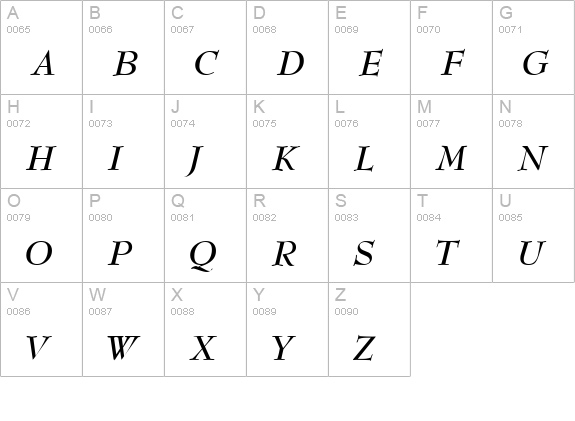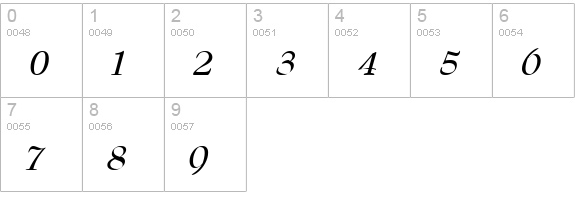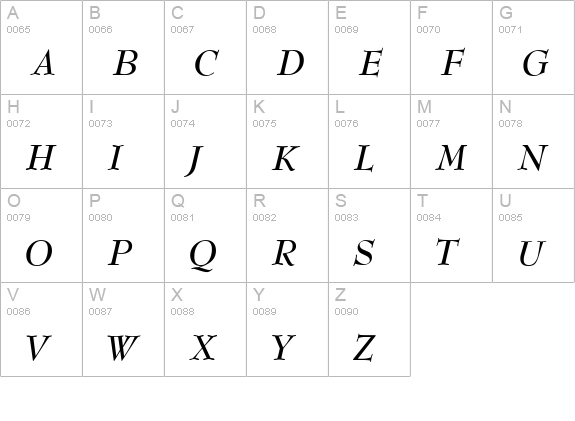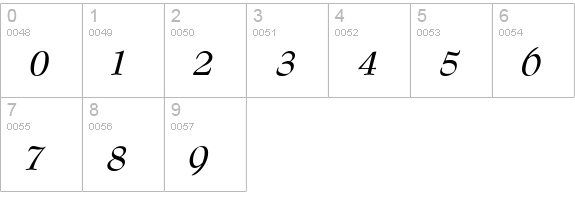
Bernadette fed kursiv Font Details
Bernadette is a beautifully elegant and sophisticated typeface with a touch of charm and grace. Its delicate curves and flowing lines give it a timeless appeal, perfect for adding a touch of class to any design project. This font exudes a sense of luxury and refinement that is sure to captivate and enchant your audience. Best of all, Bernadette is available for free download at FontsMarket.com. This means you can easily add this stunning font to your collection without any cost, making it a valuable asset for all your creative endeavors. Don't miss out on the opportunity to elevate your designs with the exquisite beauty of Bernadette in kursiv font style.